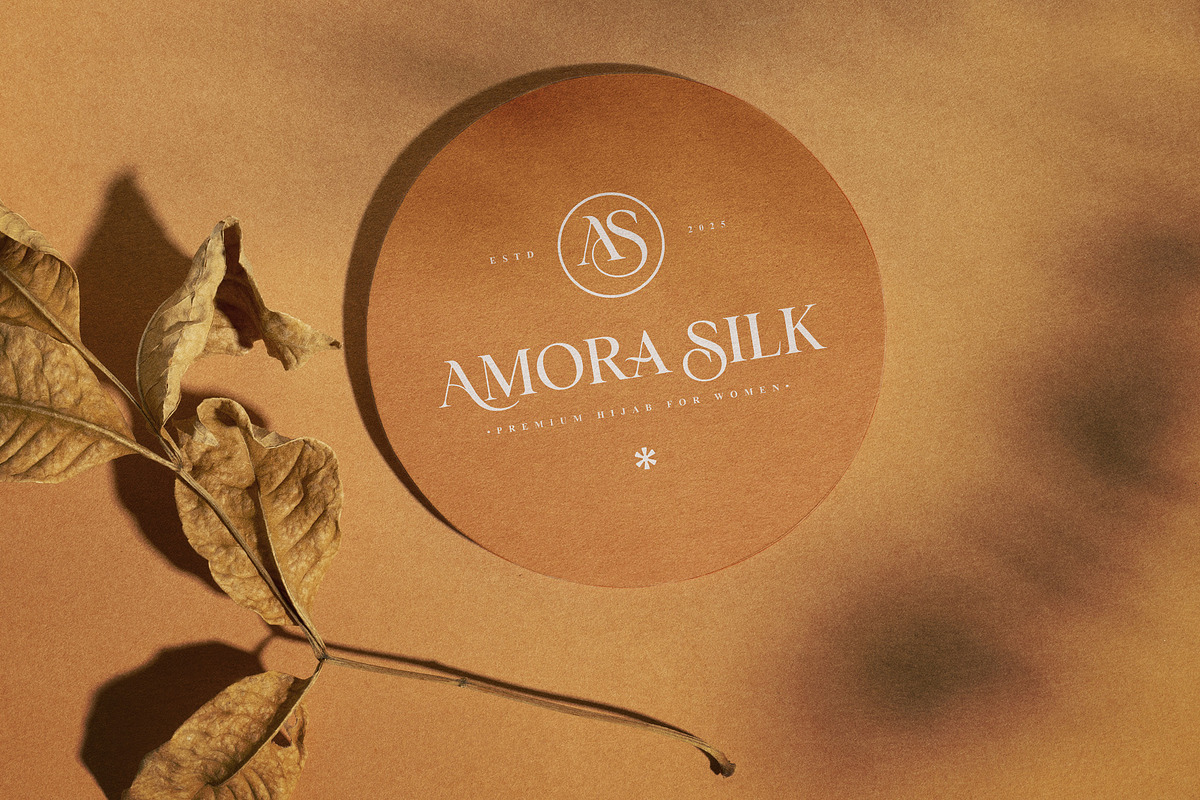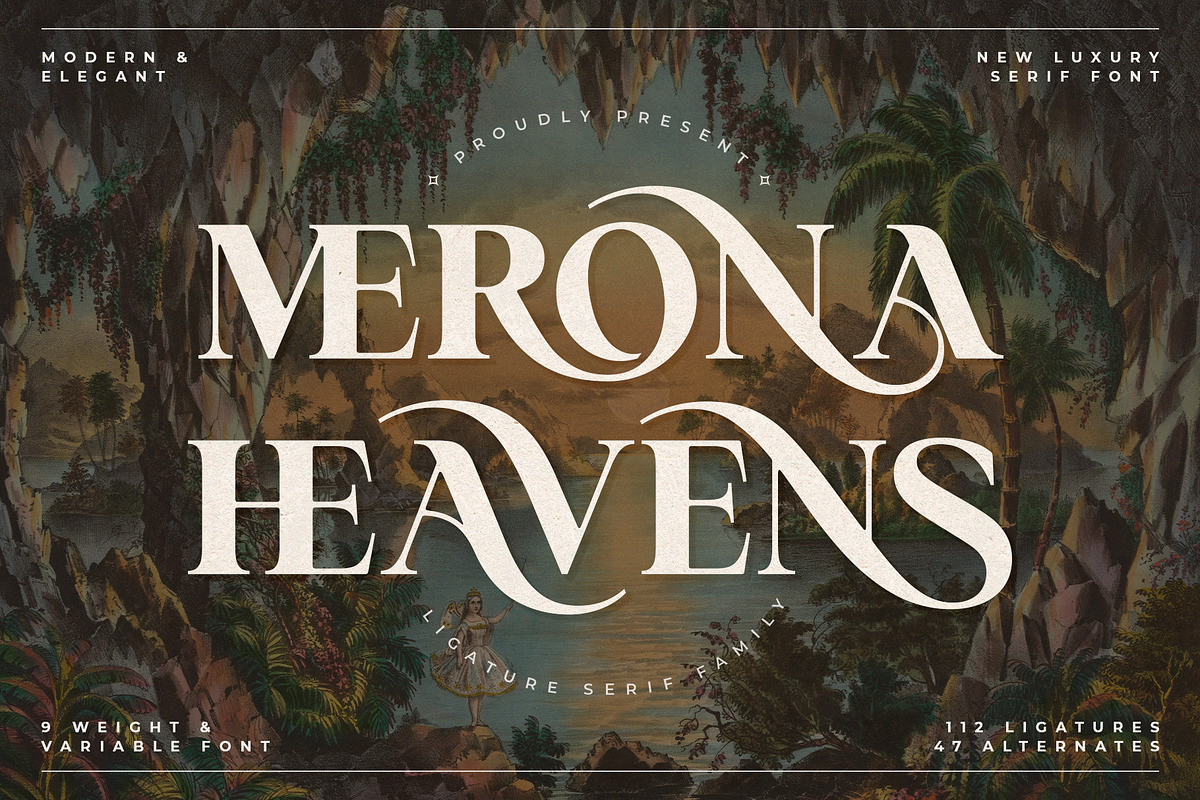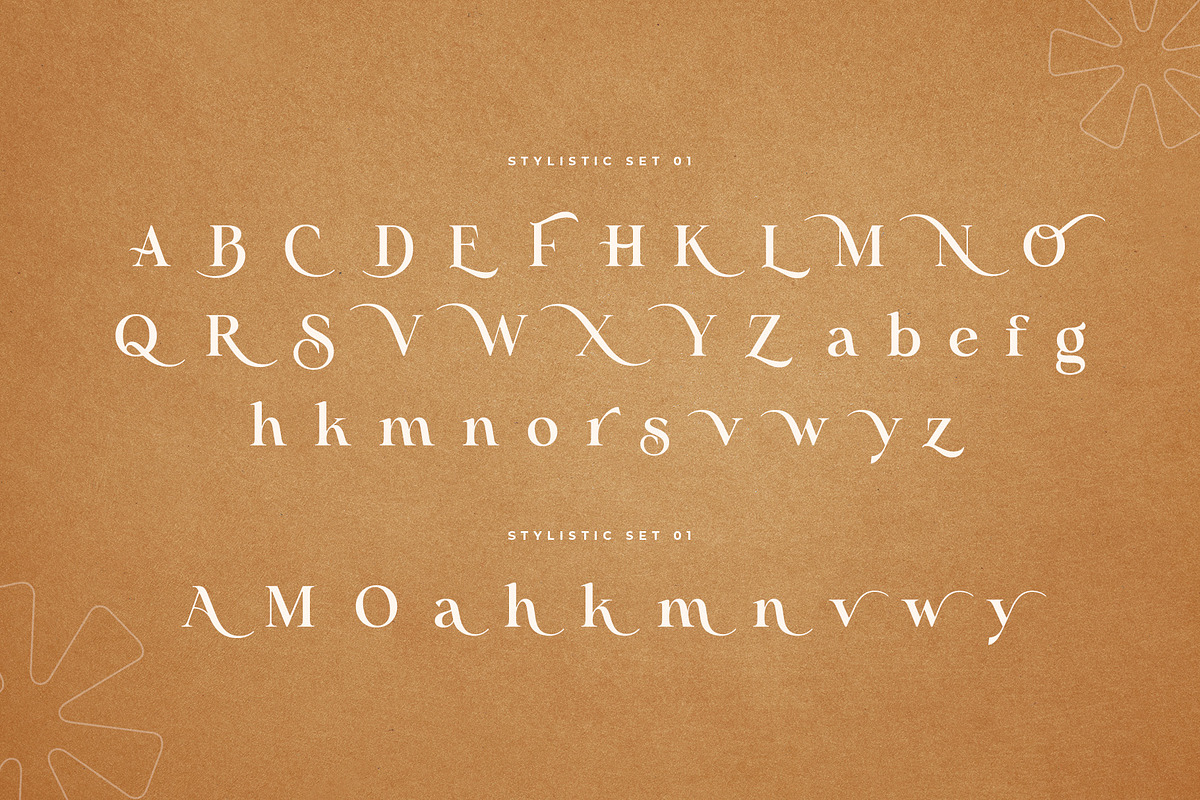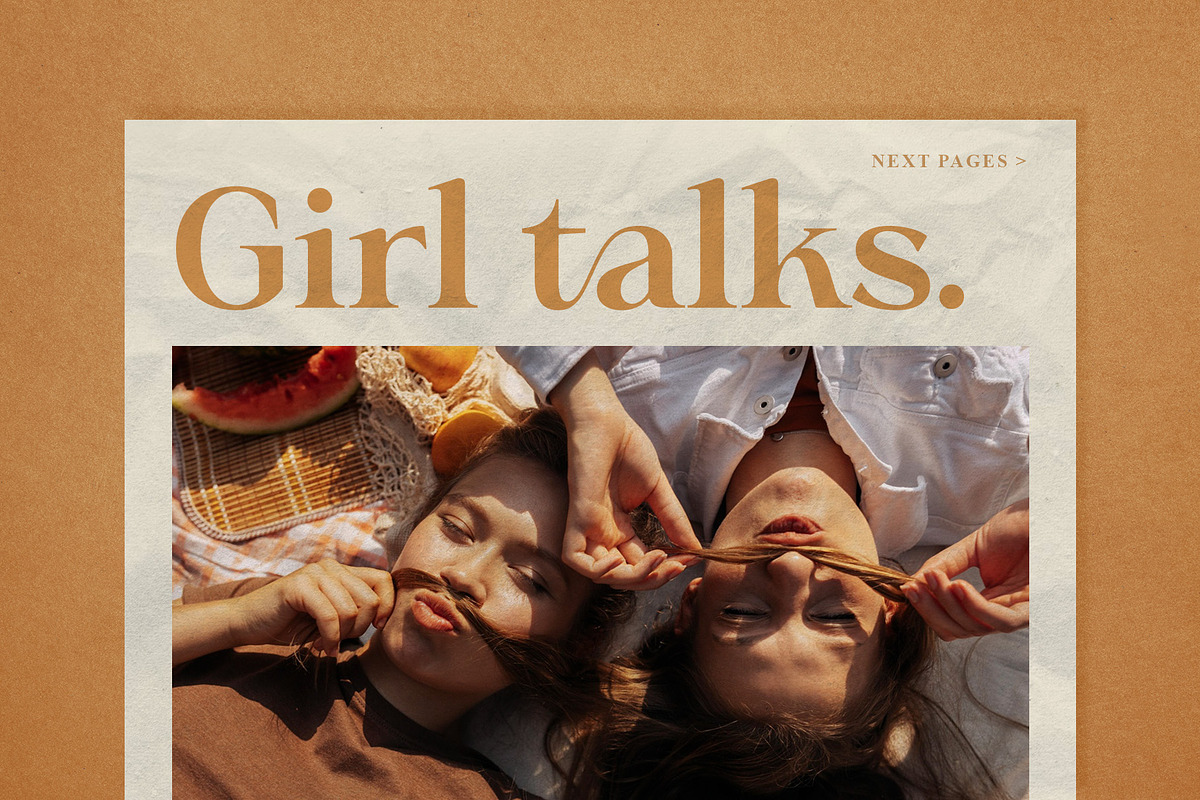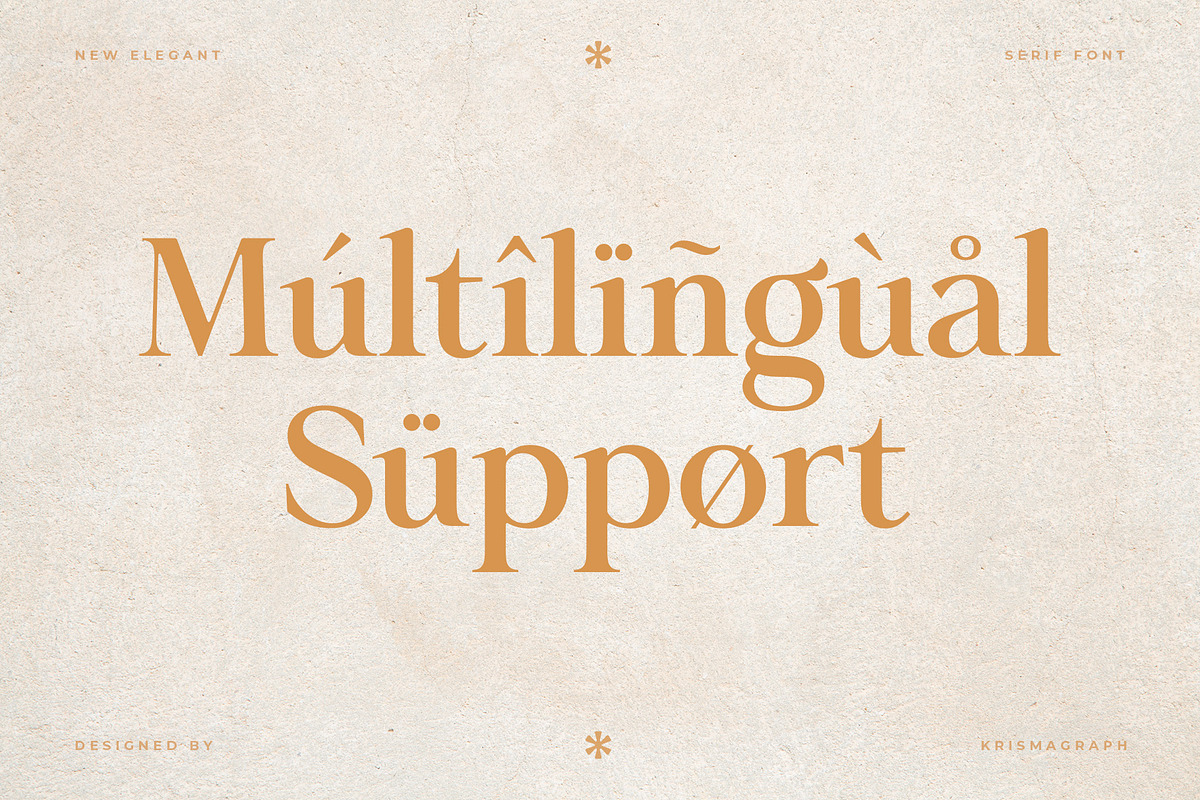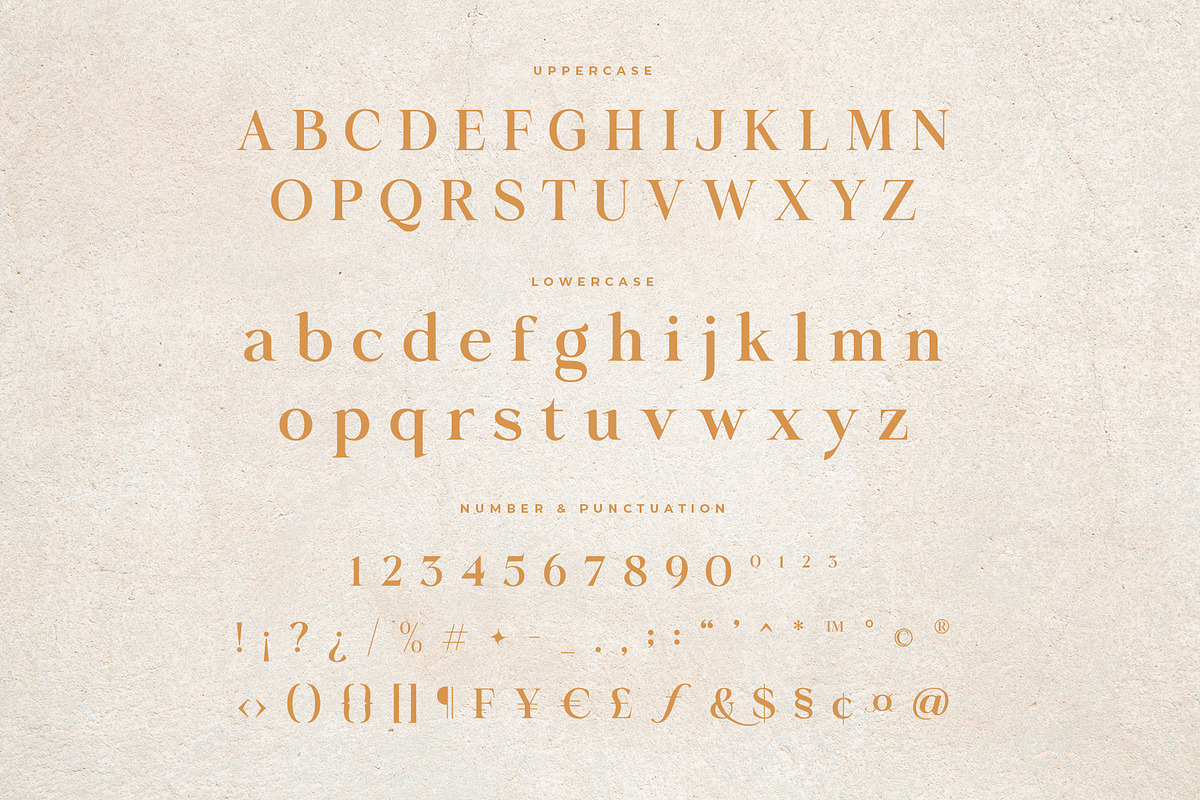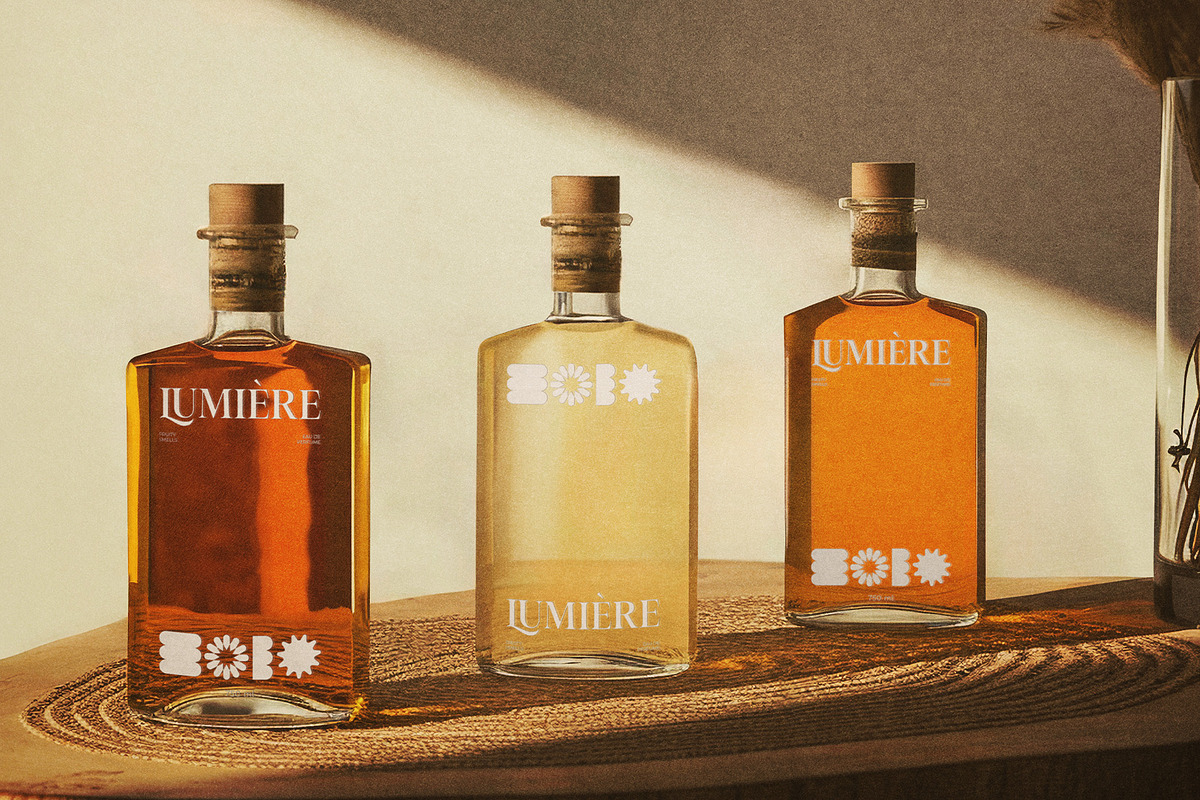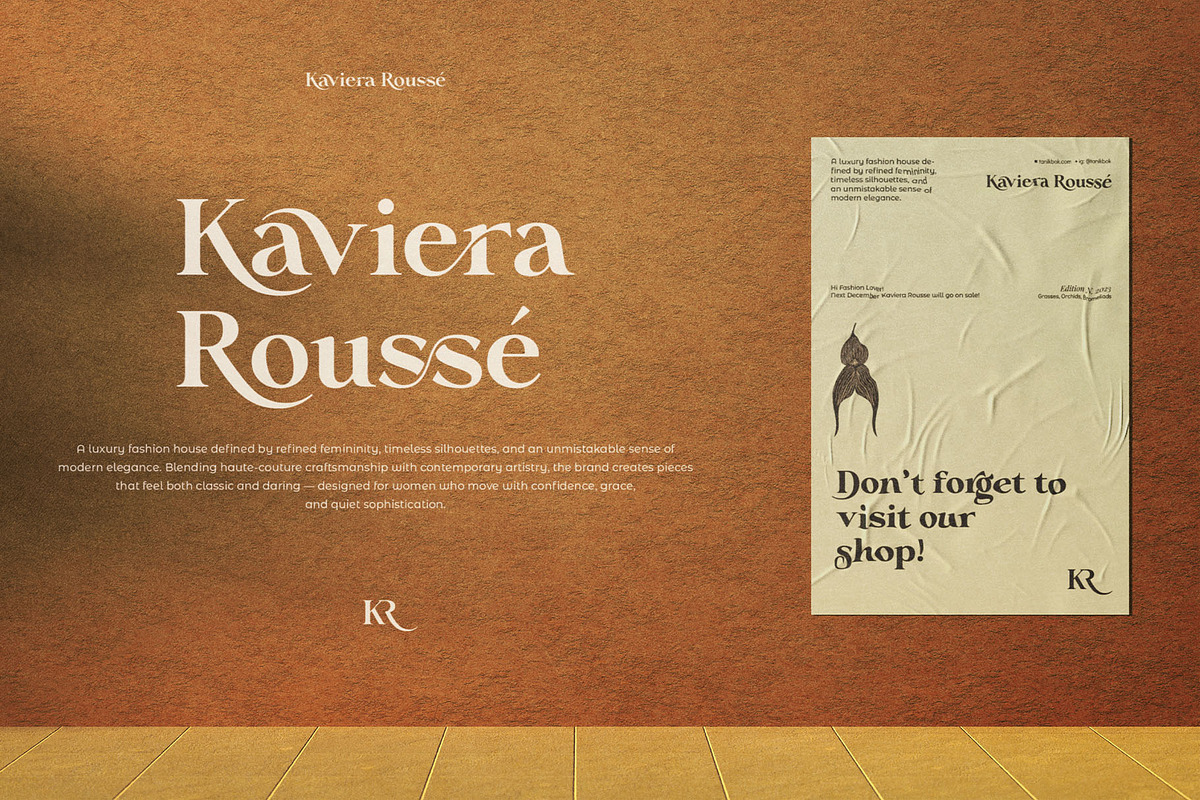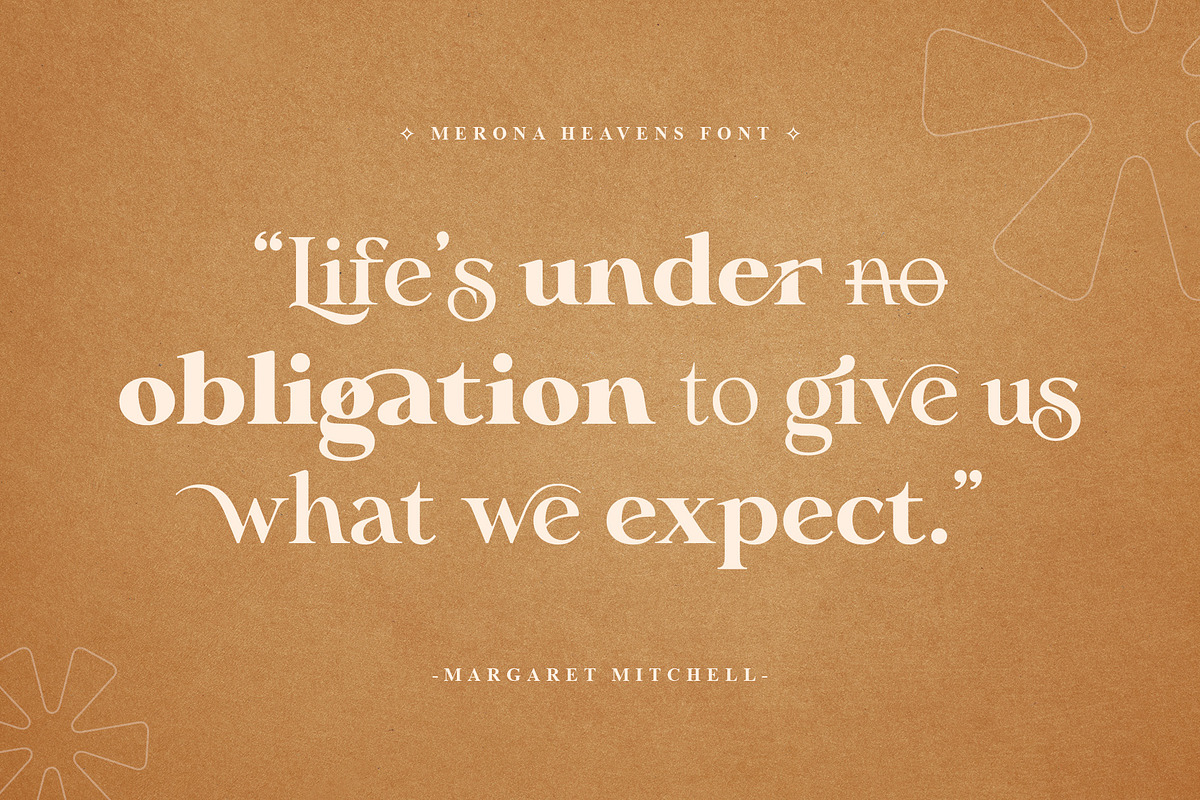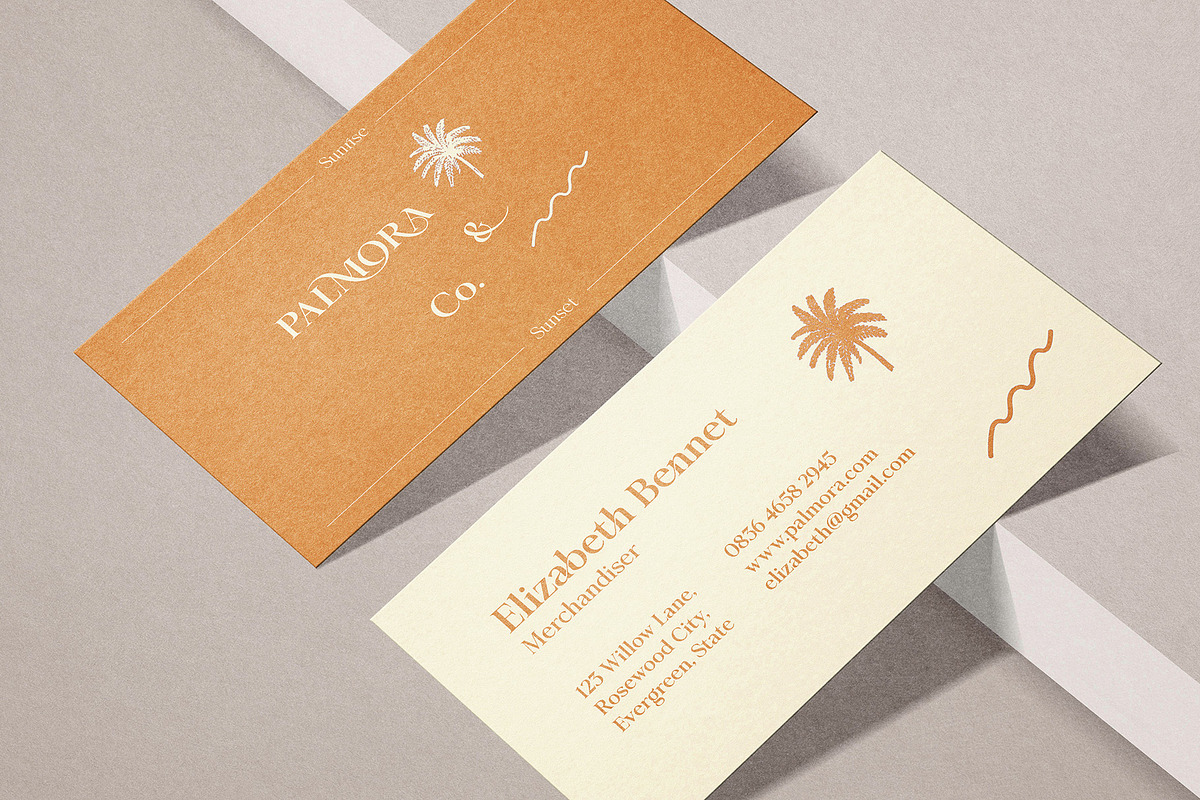
Merona Heavens Family | 9 Font Pack
Merona Heavens Family is a Modern Ligature Serif Font Family. It's soft curves mixed with high contrast glyphs, give it a feminine and masculine quality. It comes with 9 weight, 112 unique ligatures and 47 alternates. Great in layout design for quotes or body copy, best used as a display for headings, logos, branding, magazines, product packaging and invitations. . Its versatile aesthetic opens the door to endless creative possibilities, making it an essential addition to any designer’s toolkit.
- 9 Weight
- 112 Merona HeavensLigatures
- 47 Stylistic Alternates